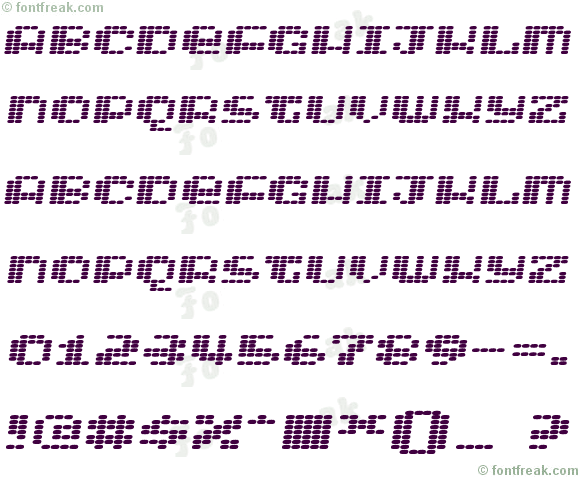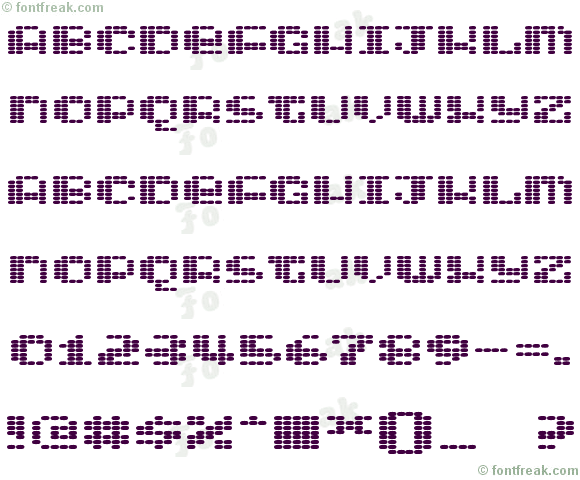
Intergalaktika
Intergalaktika 2
About Intergalaktika
Intergalaktika is a distinctive display font designed by Pizzadude, showcasing a unique aesthetic with its dot-based design. This font falls under the decorative category, making it an eye-catching choice for various creative projects. The visual characteristics of Intergalaktika include a playful arrangement of circular shapes that create a dynamic and engaging appearance. The stroke weight is consistent, giving the font a uniform look, while the spacing between characters enhances readability. This design is further accentuated by its geometric forms, which lend a modern and futuristic vibe.
Intergalaktika is ideal for specific use cases that require a bold and memorable typeface. It works exceptionally well for movie posters, where its distinctive visual appeal can draw attention. Additionally, this font can be effectively used in branding for tech startups, giving a contemporary feel that aligns with innovation. It's also a fantastic choice for event flyers or promotional materials, where a striking visual presence can make a significant impact. For content creators looking to add flair to their social media graphics or website headers, Intergalaktika offers a fun and engaging style.
The target audience for this font includes graphic designers seeking to elevate their projects with unique typography, small business owners wanting to stand out in competitive markets, and content creators looking for versatile and striking fonts.
What truly sets the Intergalaktika font apart is its playful yet sophisticated design, making it a perfect choice for anyone looking to capture attention and convey creativity. The Intergalaktika font free download allows users to incorporate this distinctive typeface into their work without the constraints of licensing fees, empowering creativity across various platforms and projects.